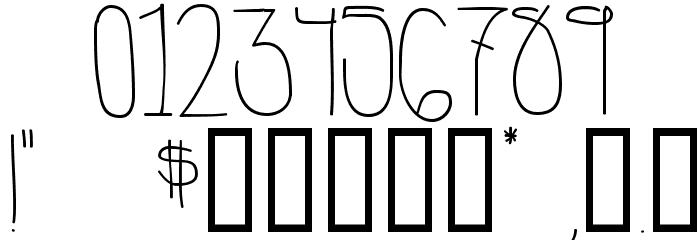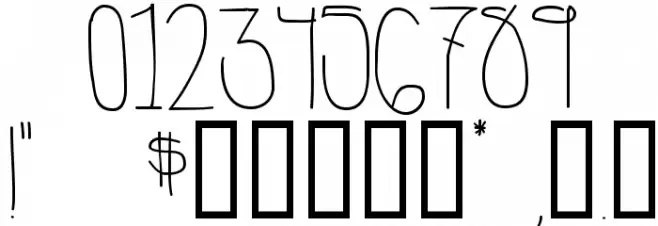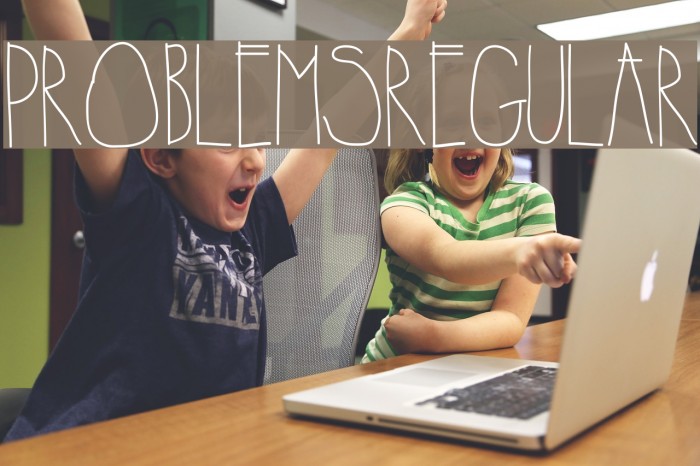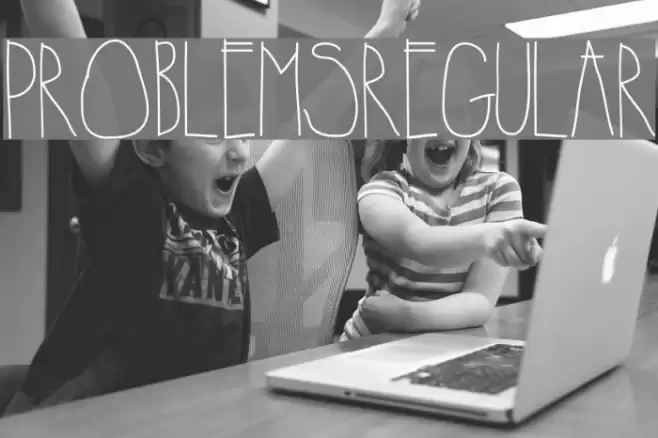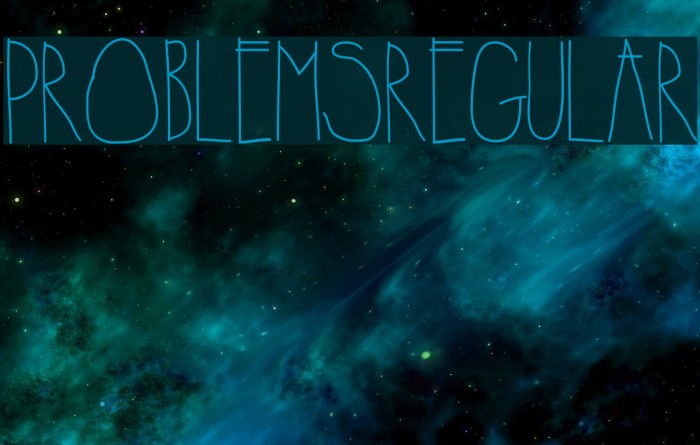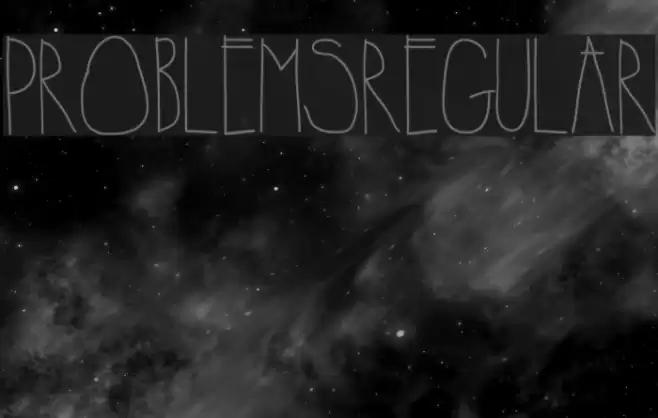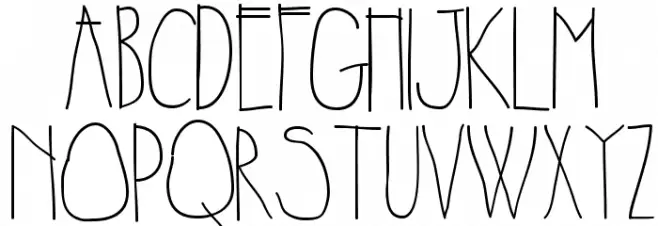
Problems-Regular Font
Problems-Regular Description
This font features a tall, narrow design with a hand-drawn aesthetic. The characters are elongated and slightly irregular, giving it a whimsical and playful feel. The strokes are consistent in width, contributing to a uniform appearance despite the quirky style. The uppercase and lowercase letters maintain a similar height, enhancing the font's unique character. The numerals and special characters follow the same design principles, ensuring cohesion across all elements. This font's distinctive style makes it stand out, suitable for creative and informal applications.
| Proposed Projects | Ideal for children's book covers, playful branding, greeting cards, and creative posters. |